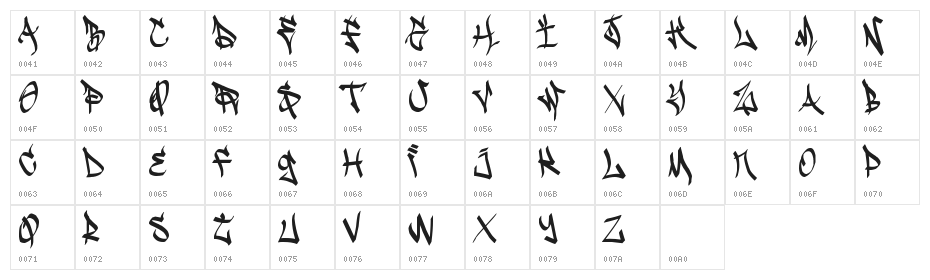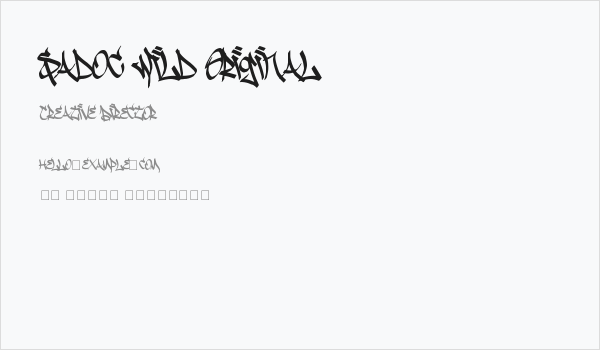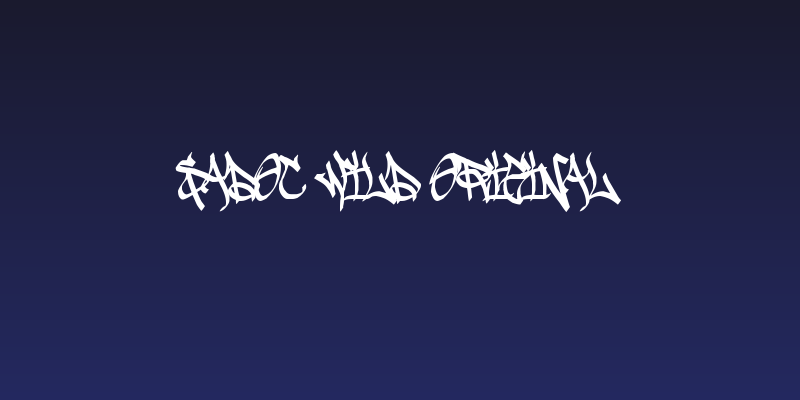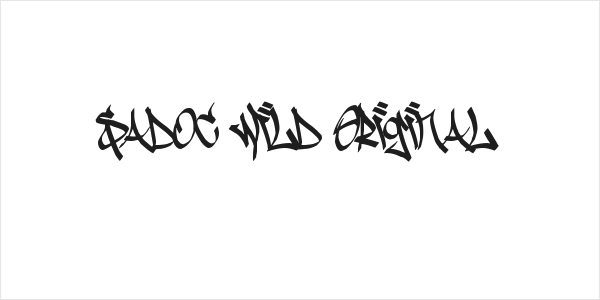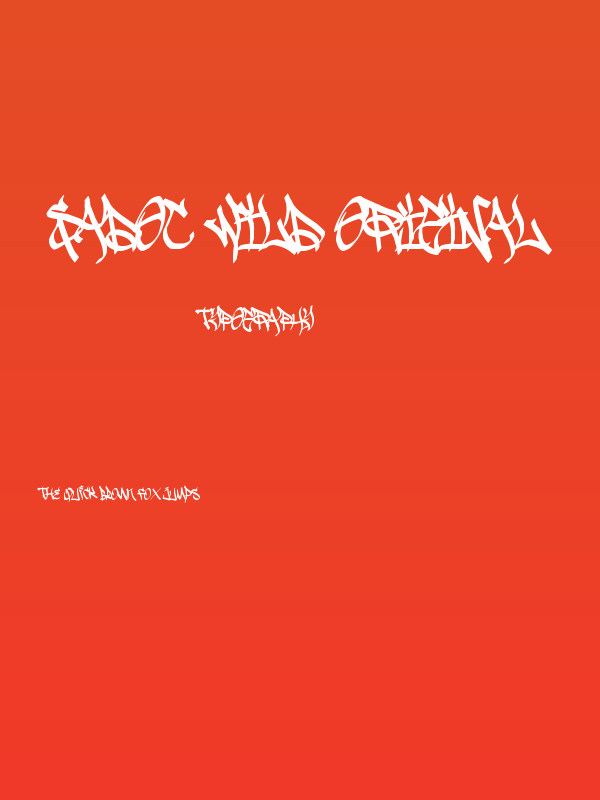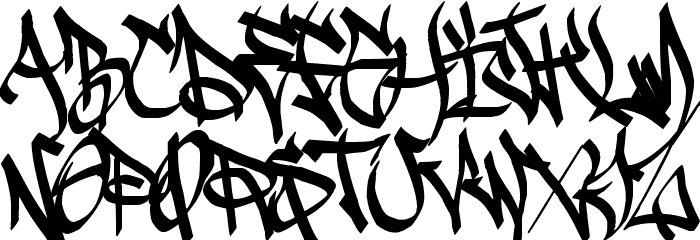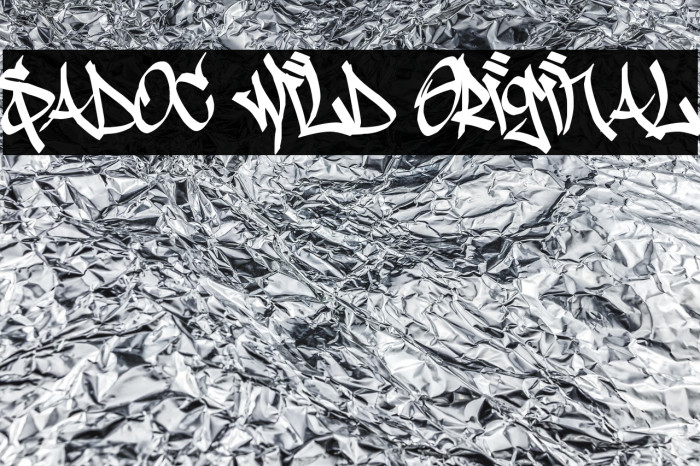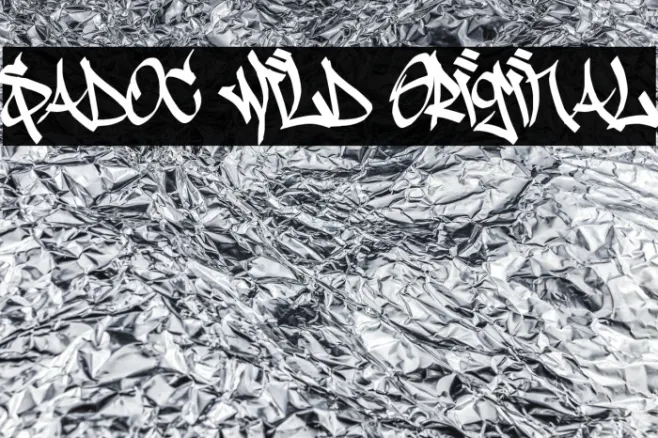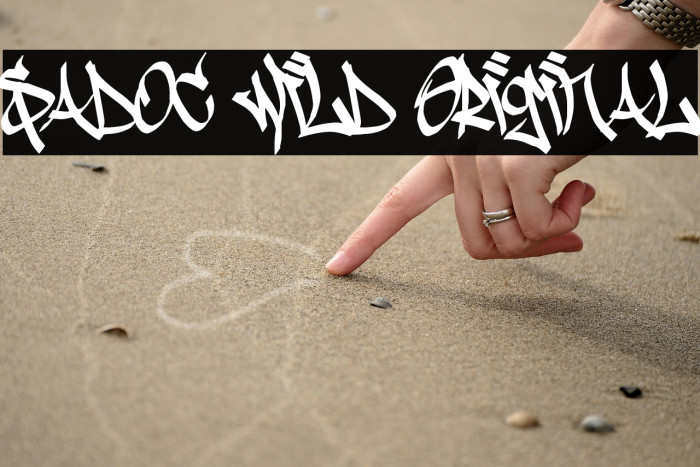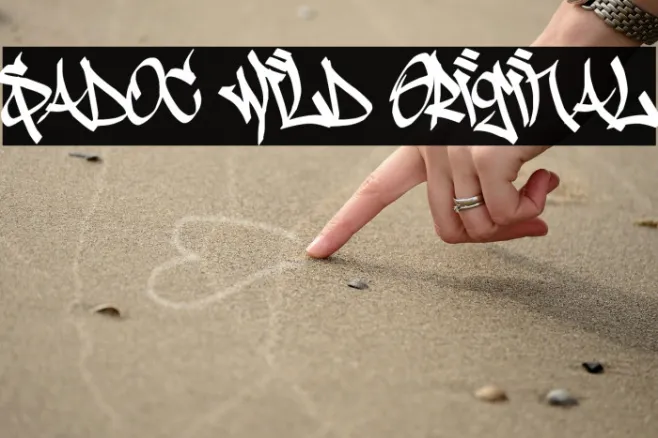
Sadoc Wild Original Font
Sadoc Wild Original Description
This font exhibits a bold, graffiti-inspired style with sharp, angular lines and a dynamic, energetic flow. The characters are highly stylized, with exaggerated curves and points that give them a rebellious and urban feel. The uppercase and lowercase letters share a consistent aesthetic, maintaining the edgy and artistic flair throughout. The font's design is reminiscent of street art, making it ideal for projects that require a bold statement or a touch of urban culture. The spacing between characters is tight, enhancing the compact and impactful appearance of the text.
| Overall Style | Modern, Urban, Edgy |
| Proposed Projects | Ideal for street art designs, urban-themed posters, music album covers, and edgy branding projects. |